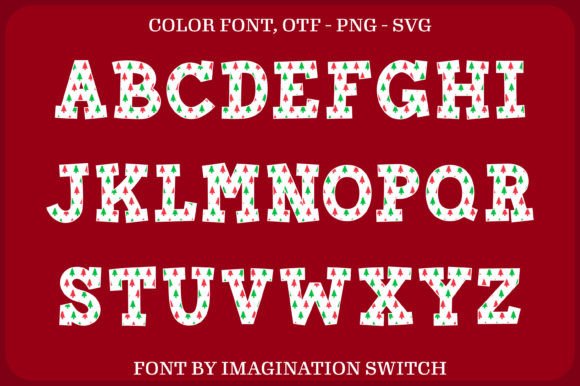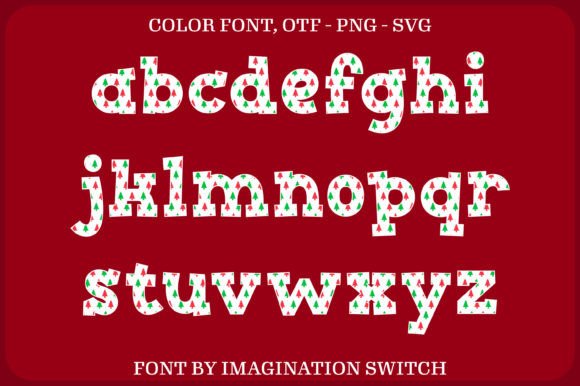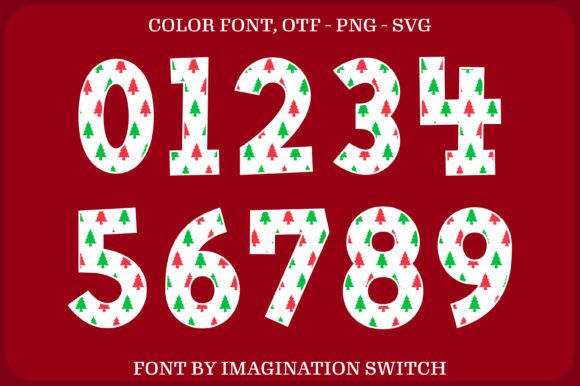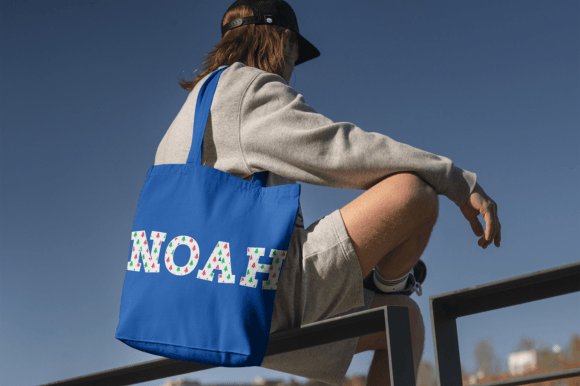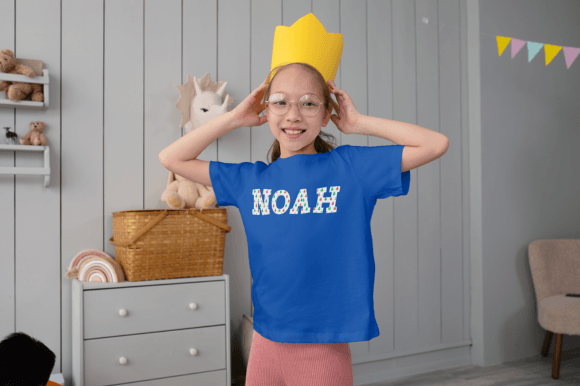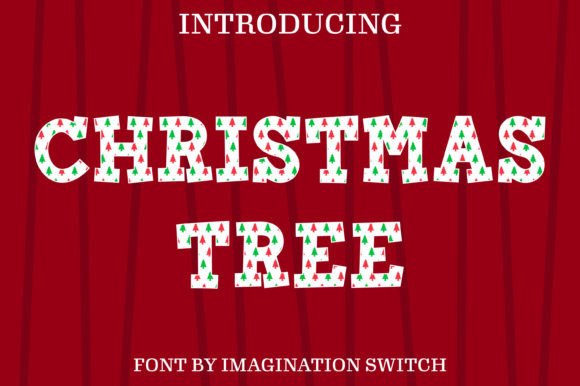
Introducing the Enchanting Christmas Tree Font: Elevate Your Designs with Vibrant Colors
Are you looking for a font that can add a touch of magic to your designs? Look no further than the captivating Christmas Tree Font. This typographic creation is designed to mesmerize with its intriguing colors, making it perfect for designers and crafters seeking to infuse their projects with uniqueness and creativity.
A Comprehensive Character Set for Endless Possibilities
The Christmas Tree Font boasts a complete set of characters, including uppercase, lowercase letters, and numbers. This extensive character set provides flexibility across various types of projects, allowing you to experiment with different combinations to achieve the desired visual impact. Whether you’re working on print designs, web designs, promotional materials, or any other creative endeavor, this font is sure to meet your needs.
Unleash Your Creativity with Carefully Chosen Colors
What sets the Christmas Tree Font apart is its thoughtful color selection for each character. The carefully chosen colors add a mesmerizing visual touch, making each word and number stand out. This attention to detail ensures that your designs are not only legible but also visually appealing, capturing the attention of your audience. With this font, you can express your creativity in every project you undertake, crafting unforgettable designs with a unique color touch.
Versatility at Its Best: Suitable for Various Applications
The Christmas Tree Font is incredibly versatile, making it an ideal choice for a wide range of purposes. Its excellent legibility and visually appealing presentation make it perfect for:
- Print designs: Create stunning posters, flyers, brochures, and more that will leave a lasting impression.
- Web designs: Enhance your website’s visual appeal with this captivating font, ensuring a memorable user experience.
- Promotional materials: Make your brand stand out with eye-catching promotional materials, such as business cards, banners, and social media graphics.
Here are some key features and benefits of the Christmas Tree Font:
- Complete character set, including uppercase, lowercase letters, and numbers.
- Carefully chosen colors for each character to add a mesmerizing visual touch.
- Excellent legibility and visually appealing presentation.
- Suitable for various applications, including print designs, web designs, promotional materials, and crafting projects.
Tips for Using the Christmas Tree Font
To get the most out of the Christmas Tree Font, consider the following tips:
- Experiment with different color combinations to create unique visual effects.
- Use the font in combination with other design elements to create a cohesive look.
- Take advantage of the font’s versatility by using it across various projects and applications.
- Don’t be afraid to push the creative boundaries and try new things!
In conclusion, the Christmas Tree Font is a captivating typographic creation that can elevate your designs with its vibrant colors and extensive character set. Its versatility, excellent legibility, and visually appealing presentation make it an ideal choice for designers and crafters seeking to infuse their projects with uniqueness and creativity. Whether you’re working on print designs, web designs, promotional materials, or crafting projects, this font is sure to meet your needs and inspire your creativity.